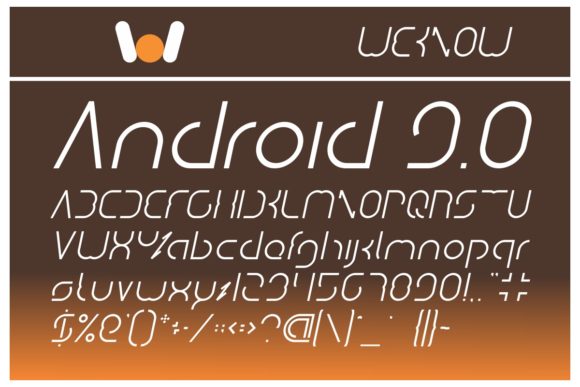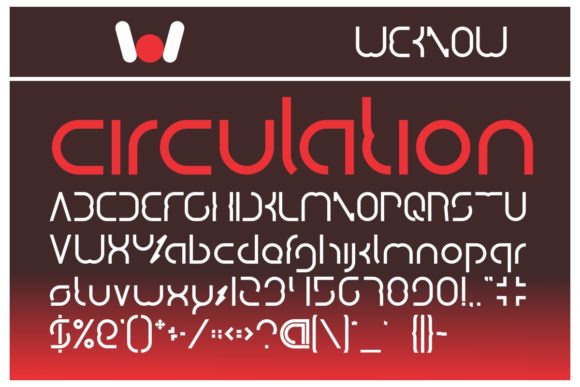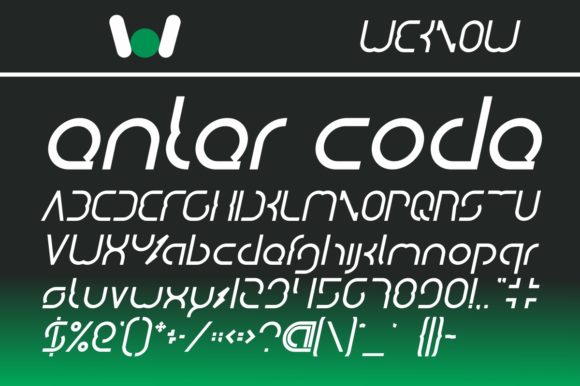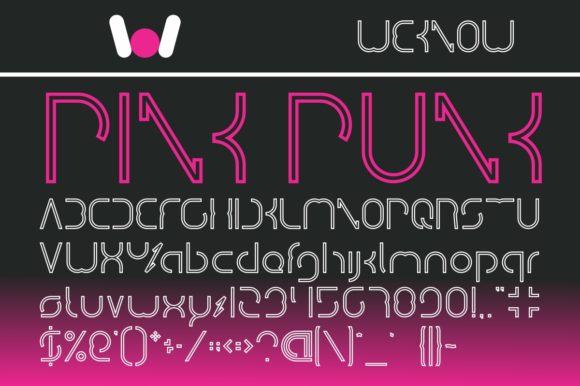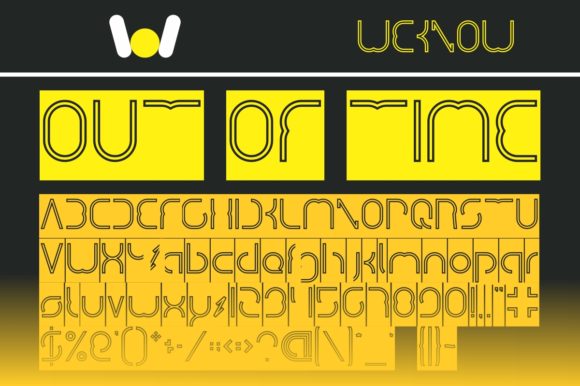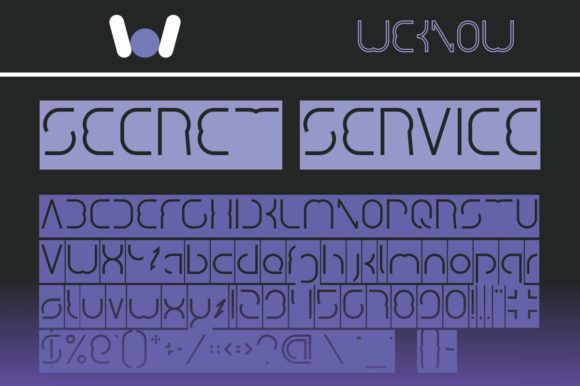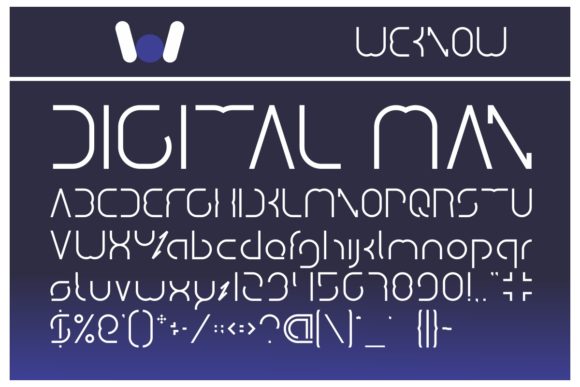
Introducing Digital Man Font: A Celebration of Eclectic Beauty
In the world of typography, fonts play a crucial role in conveying messages, expressing emotions, and creating visual identities. For designers and crafters, finding the perfect font can be a daunting task, especially when looking for something unique and attention-grabbing. This is where Digital Man Font comes in – a playfully conceptual display typeface that celebrates abstract shapes in all their eclectic beauty.
The Concept Behind Digital Man Font
Digital Man Font is a thought-provoking typeface that challenges traditional notions of typography. Its creator aimed to craft a font that not only stands out but also tells a story through its abstract shapes and forms. The result is a visually stunning font that exudes a sense of playfulness and creativity.
Key Features of Digital Man Font
- Unique and Eclectic Design: Digital Man Font boasts an unconventional design that sets it apart from traditional typefaces. Its abstract shapes and forms create a visually striking effect that’s sure to capture attention.
- Playful and Conceptual: This font is not just a means of communication; it’s a statement piece. Its playful and conceptual nature makes it perfect for designers and crafters looking to add a touch of personality to their work.
- Versatile and Adaptable: Digital Man Font is designed to be versatile and adaptable, making it suitable for a wide range of contexts, from branding and advertising to packaging and digital media.
What Makes Digital Man Font Stand Out?
So, what sets Digital Man Font apart from other typefaces? Here are a few reasons why this font is a cut above the rest:
- Abstract Shapes: The font’s abstract shapes and forms create a unique visual identity that’s hard to forget.
- Highly Legible: Despite its unconventional design, Digital Man Font remains highly legible, making it perfect for use in a variety of applications.
- Customizable: The font’s versatility allows for endless customization possibilities, ensuring that it can be tailored to suit any design or crafting project.
Digital Man Font is a dream come true for designers and crafters looking to add a touch of personality to their work. Whether you’re creating a brand identity, designing a logo, or crafting a unique piece of art, this font is sure to inspire and impress.
Use Cases for Digital Man Font
So, where can you use Digital Man Font? The possibilities are endless, but here are a few ideas to get you started:
- Branding and Advertising: Use Digital Man Font to create eye-catching logos, taglines, and ad campaigns that demand attention.
- Packaging Design: Add a touch of personality to your packaging with this unique and playful font.
- Digital Media: Use Digital Man Font to create stunning social media graphics, blog posts, and website headers that stand out from the crowd.
In conclusion, Digital Man Font is a game-changing typeface that celebrates abstract shapes in all their eclectic beauty. Its unique design, playful nature, and versatility make it perfect for designers and crafters looking to add a touch of personality to their work. Whether you’re creating a brand identity, designing a logo, or crafting a unique piece of art, Digital Man Font is sure to inspire and impress.